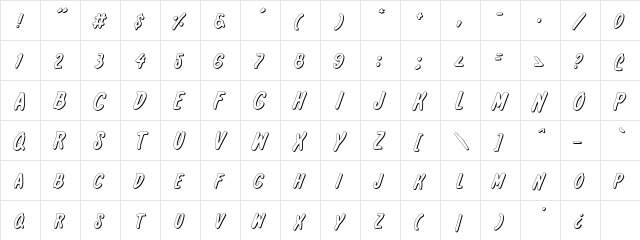
International Super Hero Out Outline
| Style | Outline |
Design Context for International Super Hero Out Typeface
International Super Hero Out is built around its visual character rather than neutral utility — its distinctive forms are designed to make an impression at display sizes.
Font Pairing: Pair with a clean neutral sans-serif for body copy to let International Super Hero Out's character lead without overwhelming the composition.
Pro Tip: Treat International Super Hero Out as the centrepiece of your typographic hierarchy. One strong heading set in a decorative face can carry an entire layout.